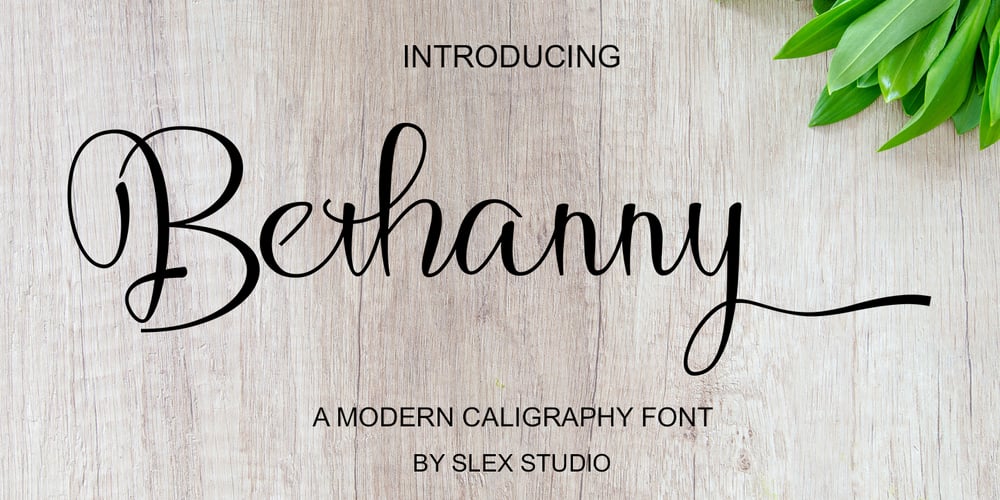
Bethanny Script Font Family was designed by Muhammad Rayyan and published by Slex Studio. Bethanny Script contains 1 styles and family package options. Bethanny simplifies elegance into one truly outstanding handwritten font. Whether you’re looking for fonts for Instagram or calligraphy scripts for DIY projects, this font will turn any creative idea into a true piece of art!